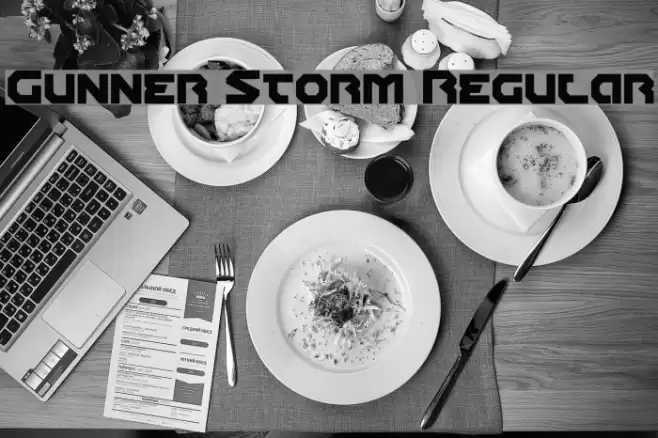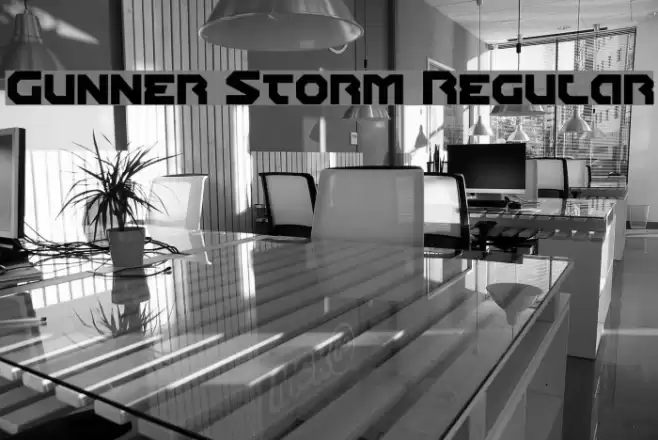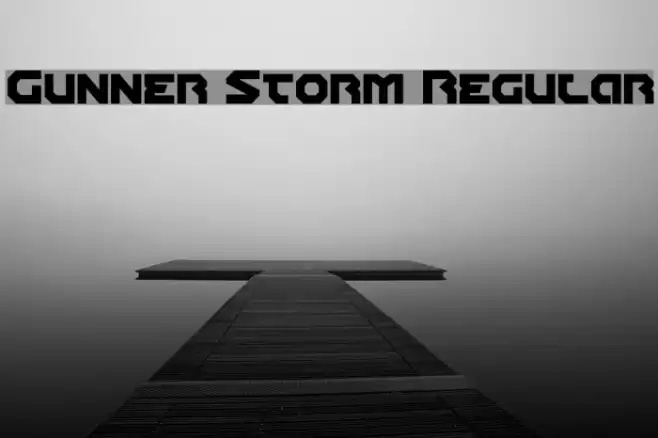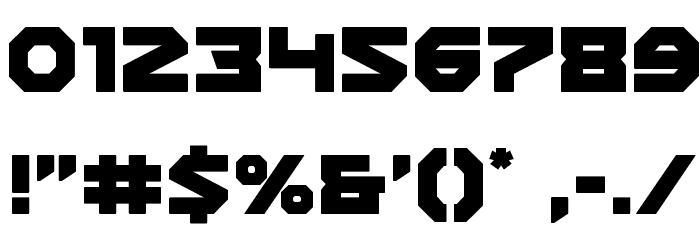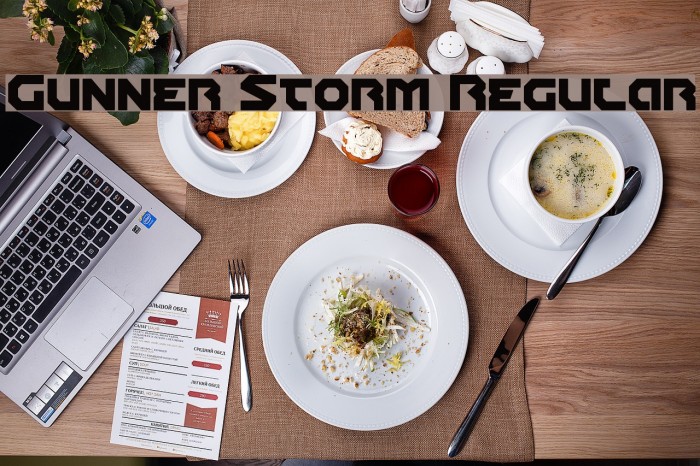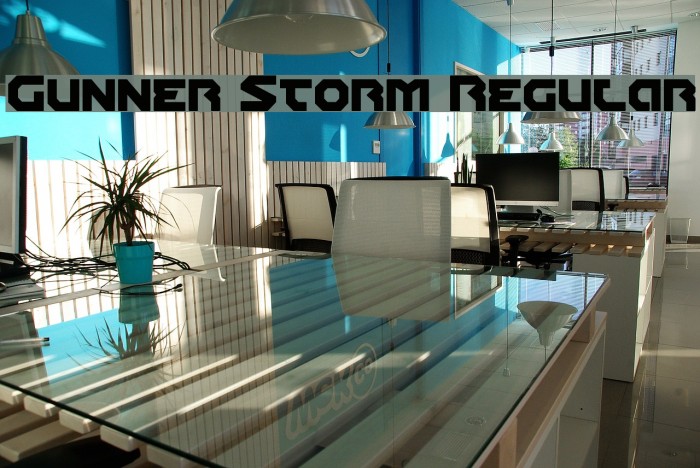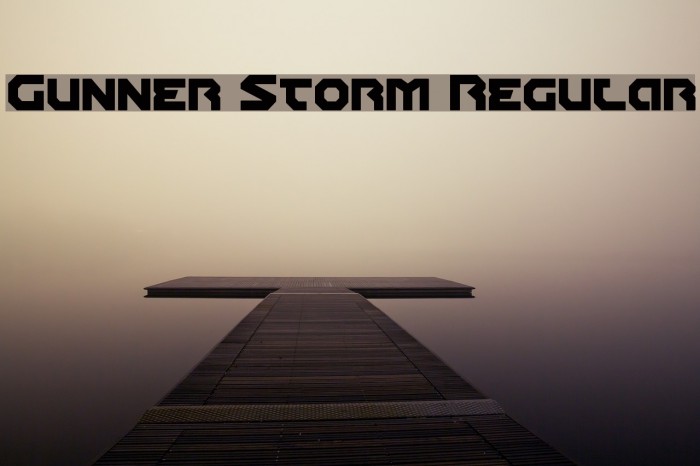
Gunner Storm Regular Font
Gunner Storm Regular Description
This font features a bold, geometric design with sharp angles and a futuristic aesthetic. The characters are constructed with a consistent thickness, giving it a strong and impactful presence. The uppercase and lowercase letters maintain a uniform style, with the lowercase mirroring the uppercase in form. Numbers and special characters follow the same angular and robust design, ensuring visual coherence across all elements. This font is ideal for projects that require a modern and assertive look, such as technology branding, video game titles, or sci-fi themed designs.
A bold, geometric font with a futuristic and angular design from Uncategorized fonts.
- Proposed Projects: Ideal for technology branding, video game titles, sci-fi themes, and modern posters.